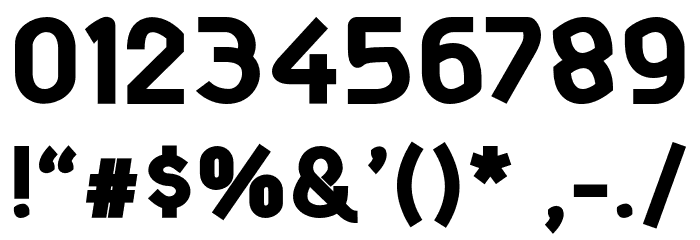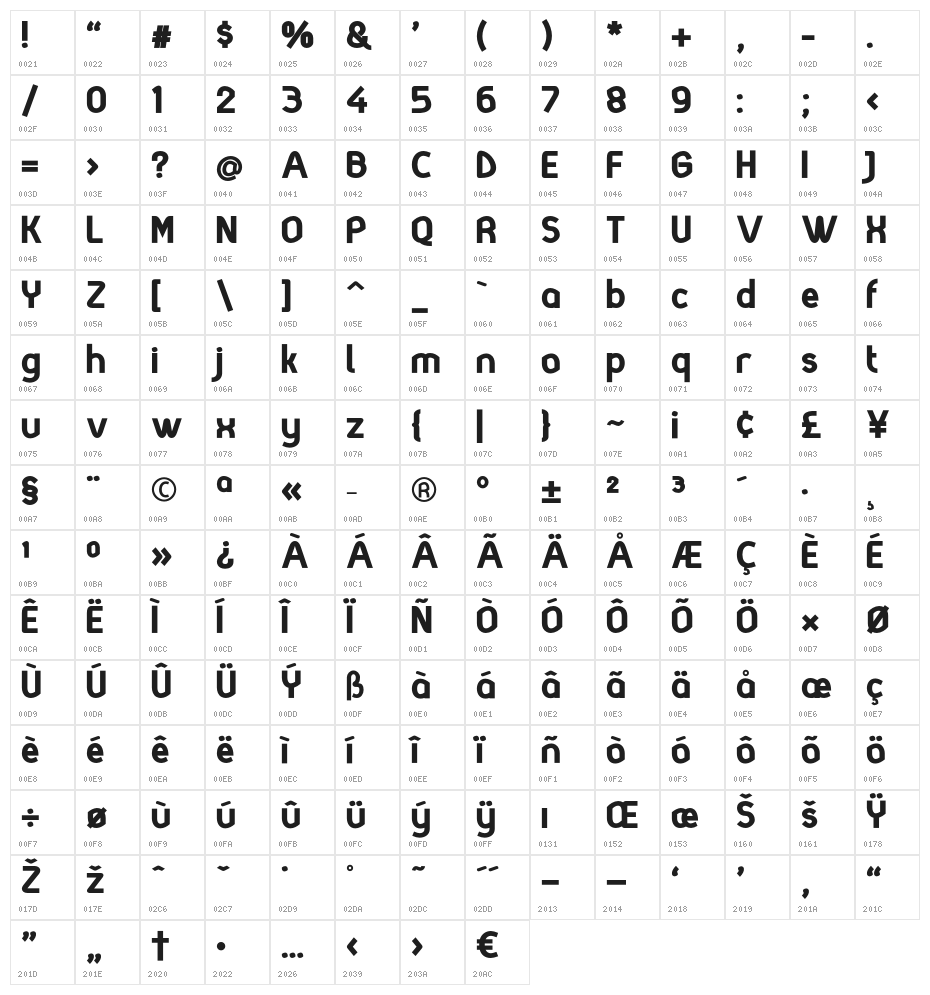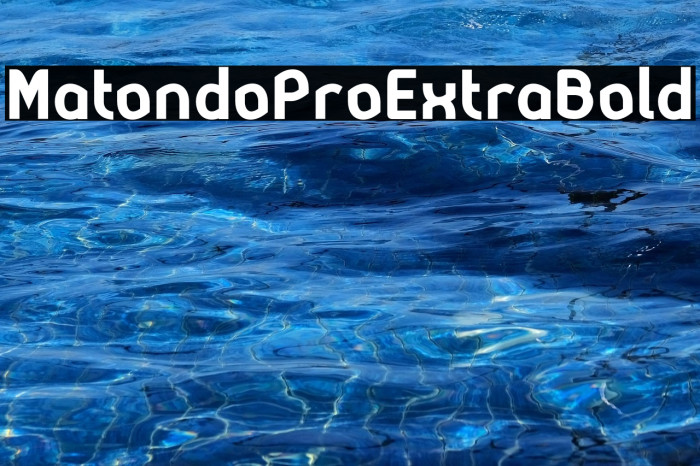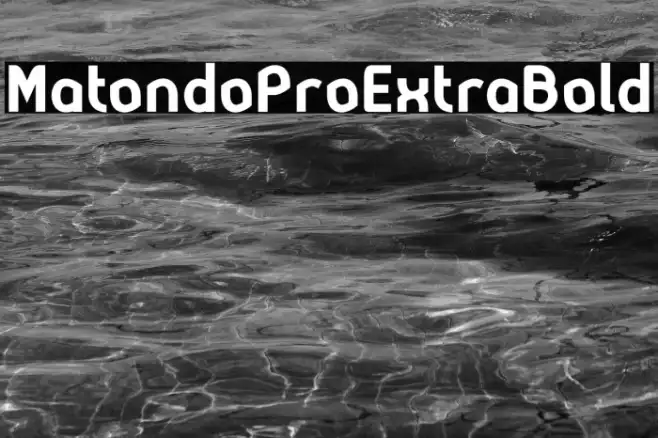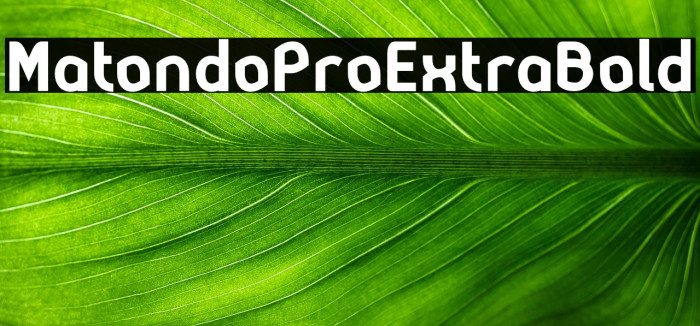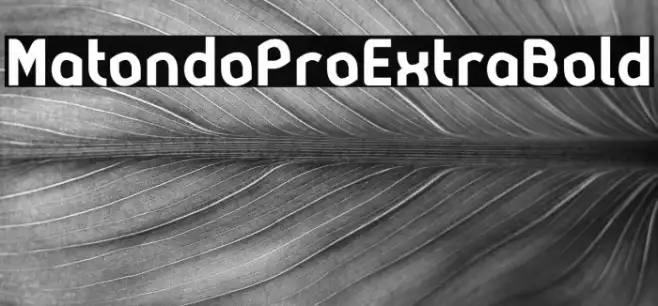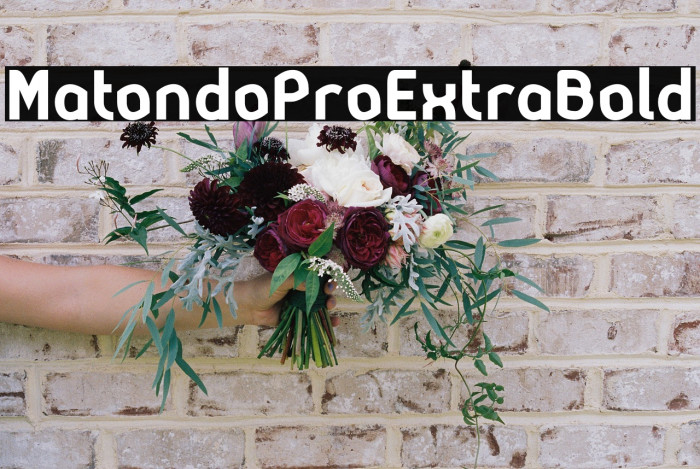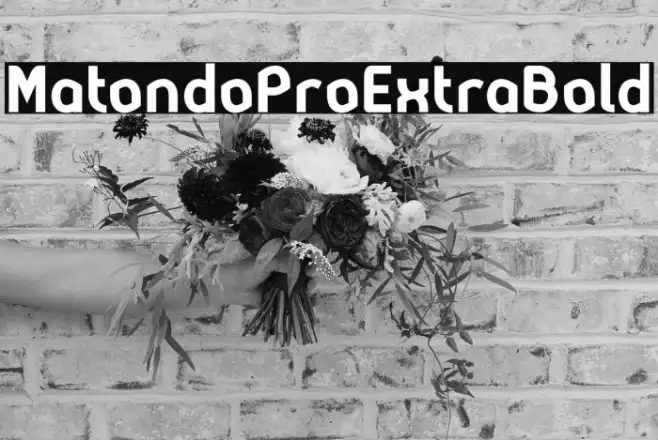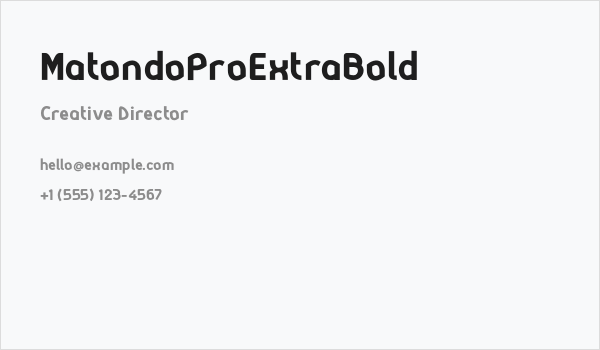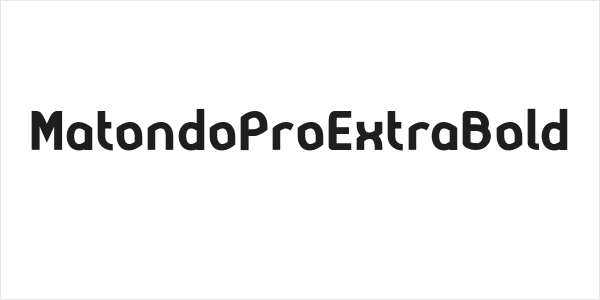
MatondoProExtraBold Font
MatondoProExtraBold Description
This font features a bold and robust design, characterized by thick strokes and a strong presence. The letters are uniformly wide, providing a sense of stability and confidence. The uppercase and lowercase letters maintain a consistent style, with rounded edges that soften the overall appearance. The numerals are clear and easily distinguishable, making them suitable for various applications. Special characters are well-integrated, maintaining the font's cohesive look. The font's design is modern and versatile, suitable for both digital and print media.